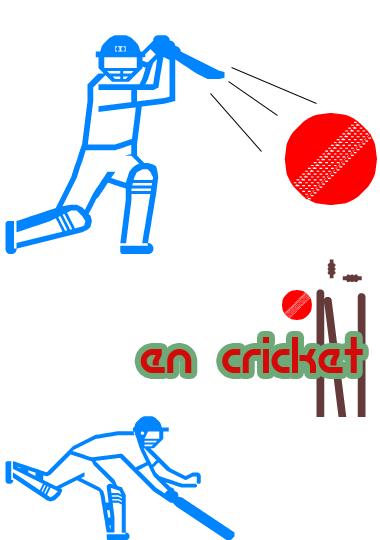
Very impressive. It's a better picture font than I could ever hope to create.
Sachin Tendulkar- This is my favorite of all my works. This is a tribute to Sachin (Little Master, Tendlya, The God of Cricket, Master Blaster,The Master, The Little Champion)